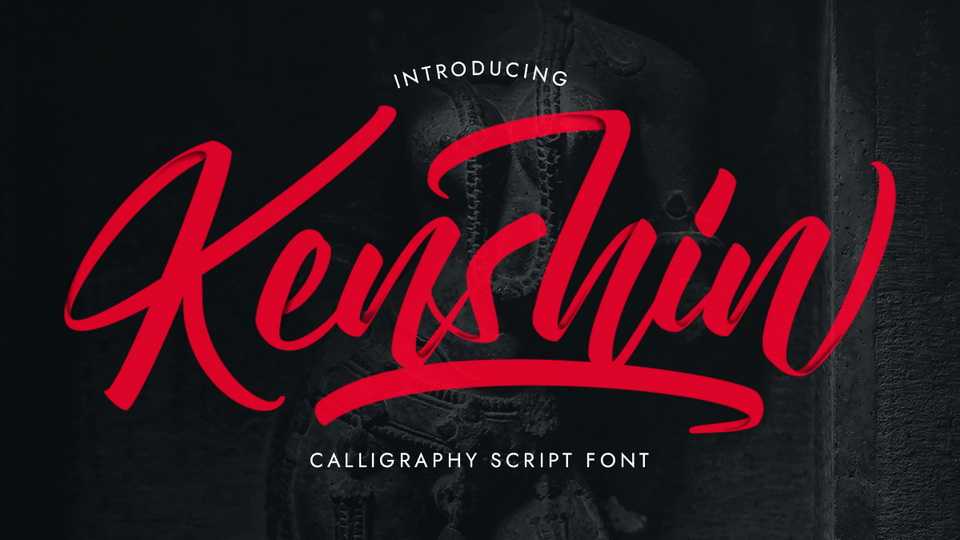
DOwnload Kenshin font, a striking hand lettered script that simplifies elegance into one truly outstanding lettering. Kenshin font is best suited for headlines of all sizes, as well as for blocks of text that have both maximum and minimum variations.
Designer: Jehoo Creative